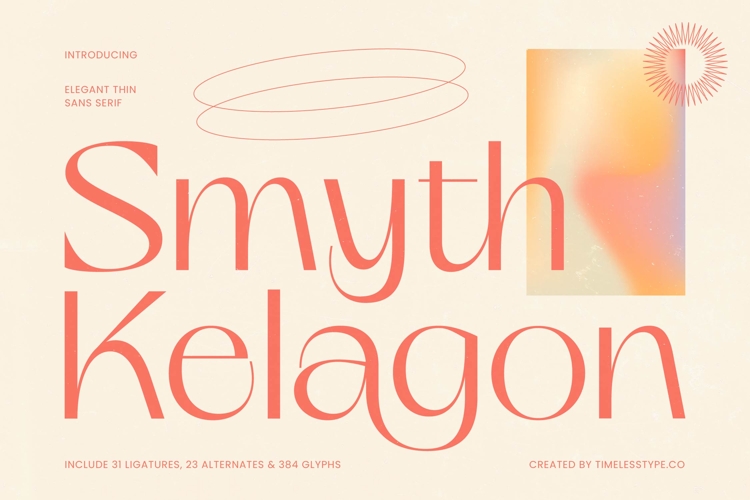
Smyth Kelagon - Elegant Thin Sans Serif
Discover unparalleled elegance and modern sophistication with Smyth Kelagon - Elegant Thin Sans Serif, a typeface meticulously crafted to infuse your projects with an air of delicate grace. Its unique blend of high-contrast strokes and slender letterforms creates an instantly captivating visual presence, commanding attention with understated power. This font is the epitome of contemporary luxury, designed for discerning brands seeking a distinctive aesthetic.
Unleash boundless creative potential with an impressive suite of 31 ligatures and 23 alternates. Smyth Kelagon - Elegant Thin Sans Serif offers unrivaled typographic versatility, providing the tools to craft truly unique and expressive headlines, logos, and body text. These carefully designed features enable a bespoke look that reflects true design excellence, enhancing visual hierarchy and impact with every character.
Connect globally with effortless grace, knowing your message transcends borders. With its extensive multilingual support, Smyth Kelagon - Elegant Thin Sans Serif adapts seamlessly across global markets, making it incredibly versatile for international projects. This comprehensive language coverage ensures your message resonates clearly and beautifully, fostering seamless communication and establishing a strong, cohesive global brand identity without compromise.
Transform your brand's narrative and leave an indelible mark. Smyth Kelagon - Elegant Thin Sans Serif is the definitive choice for projects demanding a touch of the extraordinary. It is perfect for luxury branding, high-end editorial design, exclusive packaging, fashion communication, and sophisticated event invitations. Elevate your visual communication and make an unforgettable impression that speaks volumes about quality and distinction.